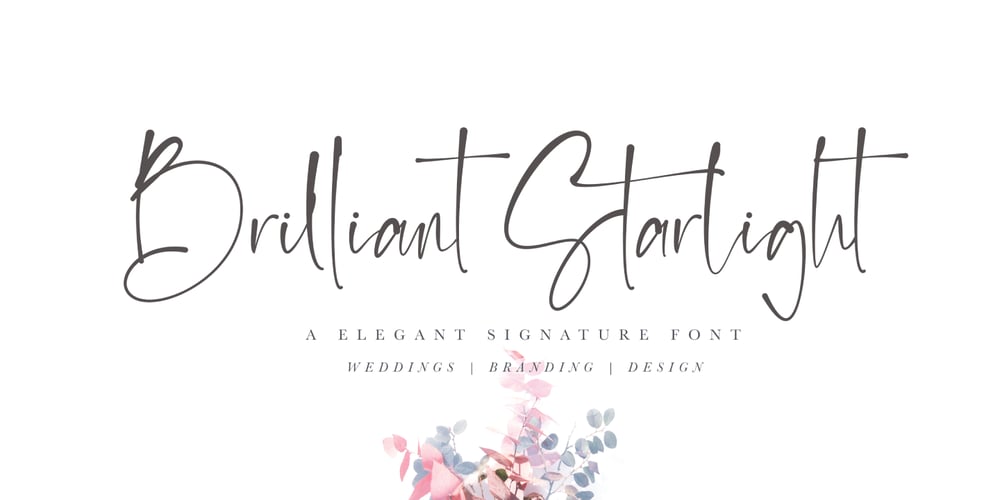
Brilliant Starlight Font Family was designed by David Kasidi and published by Silverdav. Brilliant Starlight contains 1 styles and family package options. Brilliant Starlight is a very elegant and simple handwritten font, suitable for business cards, signatures, brochures, logos, quotes and more.